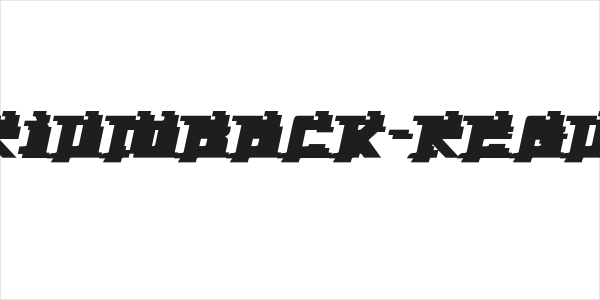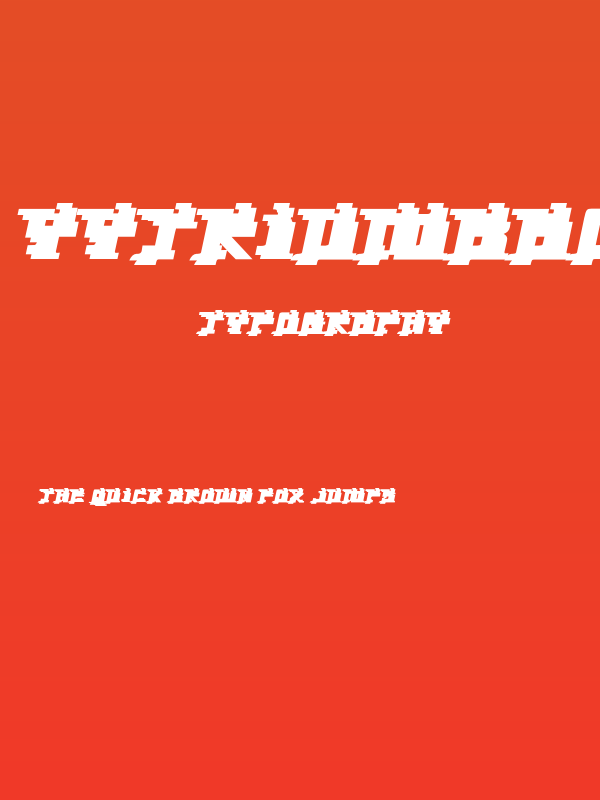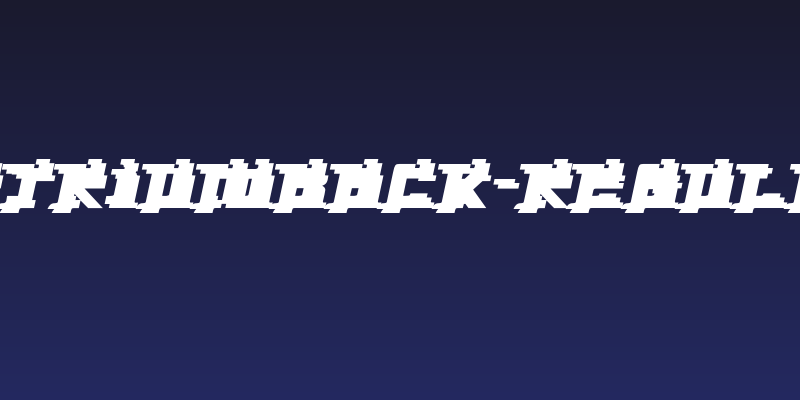
YytriumBack-Regular Font
YytriumBack-Regular Description
This font features a bold and striking design with a pixelated, digital aesthetic. Each character is constructed with sharp, angular edges, giving it a futuristic and tech-inspired look. The uppercase and lowercase letters maintain a consistent style, with a blocky and geometric form. Numbers and special characters follow the same design principles, ensuring uniformity across all glyphs. The font's unique style makes it stand out, ideal for projects that require a modern and edgy appearance.
| Proposed Projects | Ideal for video game graphics, tech-themed posters, digital art, and branding for technology companies. |